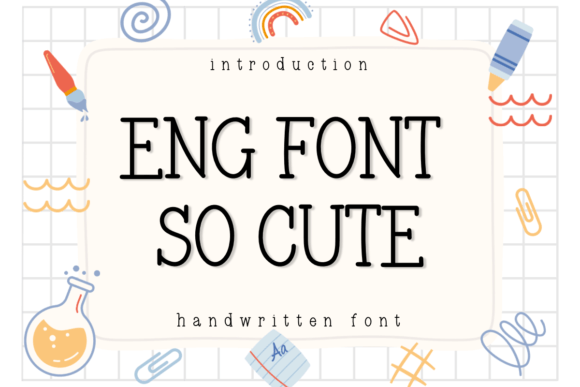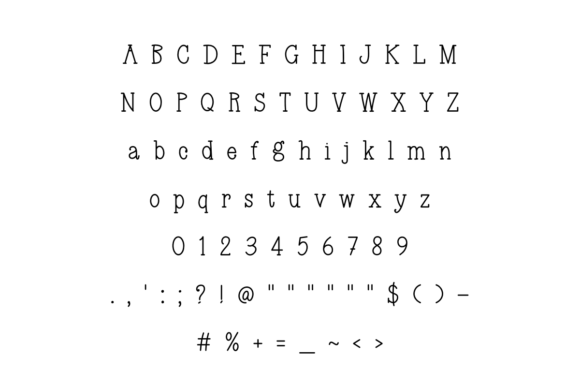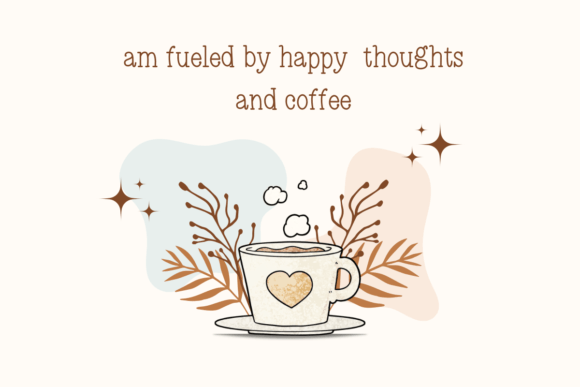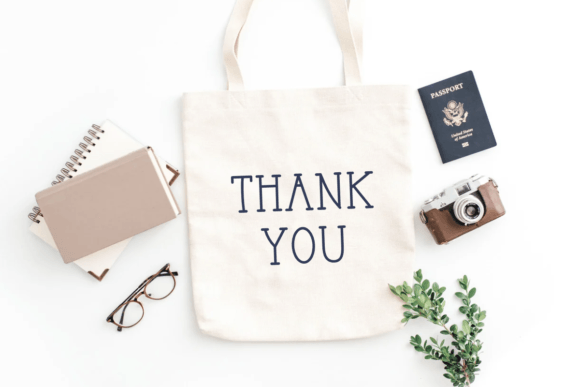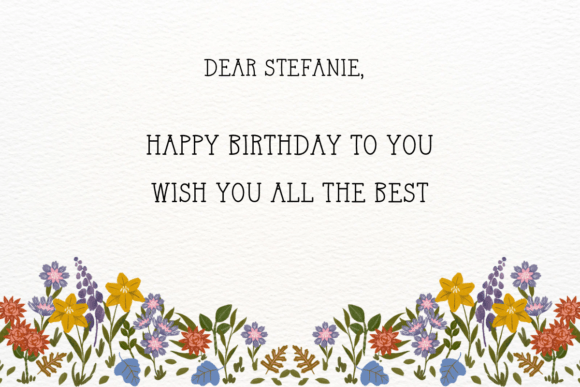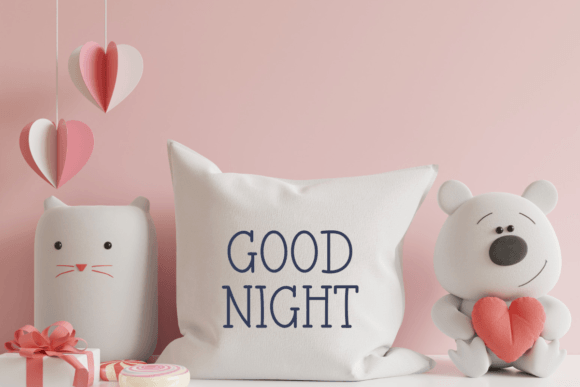
Do you ever get that creative spark in the middle of the night, when you’re brainstorming ideas for a new project and suddenly, the perfect font pops into your head? It’s that feeling of excitement and inspiration that makes all the late nights worth it. For me, that font is often the Eng Font so Cute Font – a charming handwritten serif font that adds a playful and sweet touch to any design.
This lovely font is perfect for invitations, greeting cards, or any project that needs a friendly and cozy feel. Its soft, rounded letters are sure to bring a smile to your face, and its versatility makes it a valuable addition to any designer’s toolkit. Whether you’re working on a wedding invitation or a children’s book, the Eng Font so Cute Font is sure to bring a touch of whimsy and cuteness to your designs.
Key Features of Eng Font so Cute Font
- Unique Characteristics: The font’s cute and playful design makes it perfect for children’s books, nursery rhymes, and educational materials.
Designer Review: Eng Font so Cute Font
At first glance, I was drawn in by the playful and quirky aesthetic of Eng Font so Cute Font. ✨ The font’s rounded edges and exaggerated letterforms are reminiscent of a child’s handwriting, which immediately made me smile. The font’s versatility shines through in its 6 different styles, ranging from casual to formal.
- ✨ The font’s friendly and approachable vibe makes it perfect for social media, blog posts, and other informal content.
- ✨ The font’s versatility in styles allows it to be used across various design projects, from children’s books to advertising materials.
However, there are a few limitations to consider: ⚠️ The font’s rounded edges can sometimes make it difficult to read at small sizes. Additionally, the font’s playful nature may not be suitable for all types of content, such as technical or financial documents.
Overall, I think Eng Font so Cute Font is a great addition to any designer’s toolkit. While it may not be suitable for all projects, its unique charm and versatility make it a standout choice for designers looking to add some personality to their work.
Eng Font so Cute Font is commonly used in:
– Children’s birthday invitations and party decorations.
– Social media graphics and posts.
– Greeting cards and gift tags.
– DIY crafts and handmade products.